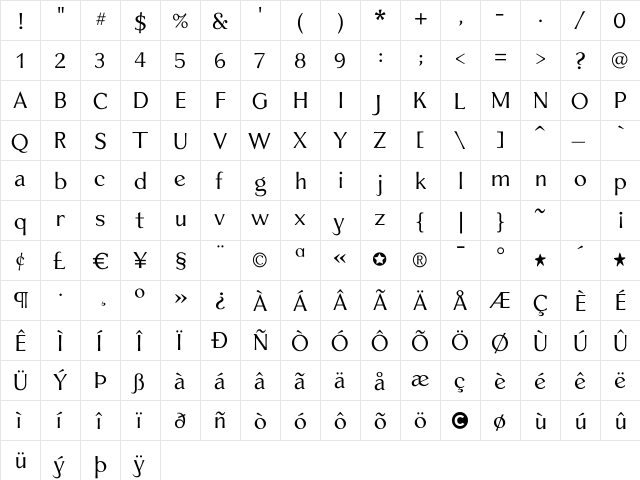
VenisRegular Regular
Design Context for VenisRegular Typeface
VenisRegular is a composed and adaptable typeface that performs quietly and consistently across a wide range of design contexts.